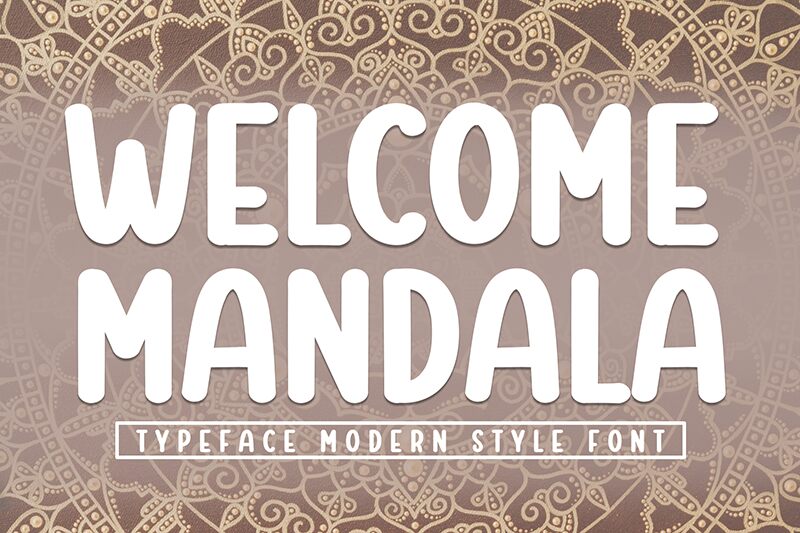
Welcome Mandala
Welcome Mandala font, designed by Andi Moz, is a sweet and friendly handwritten display font. Combining rounded forms with whimsical and contemporary touches, it boasts a retro presence that stands strong while maintaining an inviting aesthetic. Its bold presentation makes it a visual treat wherever it's used.
Ideal for wedding invitations, cards, branding projects, advertisements, posters, social media graphics, or website headers. Decorate your blog titles or magazine covers with this free handwritten font to add the playful touch you’ve been missing!